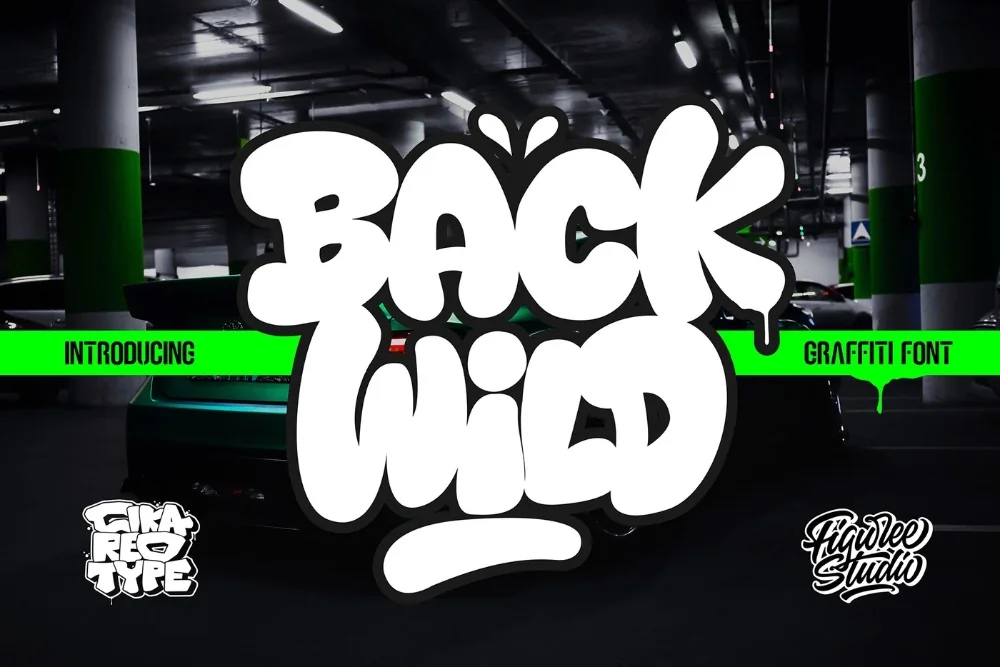
Wild Style Comeback Font
A wild style font lives or dies on how it behaves at real sizes, and this one has been tested at both extremes. Full wildstyle complexity with just enough restraint to stay readable. A good bridge between hard graffiti and commercial work.
Letters keep the arrows and overlaps of classic wildstyle but hold a steadier baseline and more consistent width. Longer words survive better than in a purely traditional cut.
Works for brand headlines, back-to-school campaigns, youth club branding, and merch drops.
It reverses well out of dark backgrounds, which is worth remembering if the artwork is heading for a black shirt or a night-time photograph.